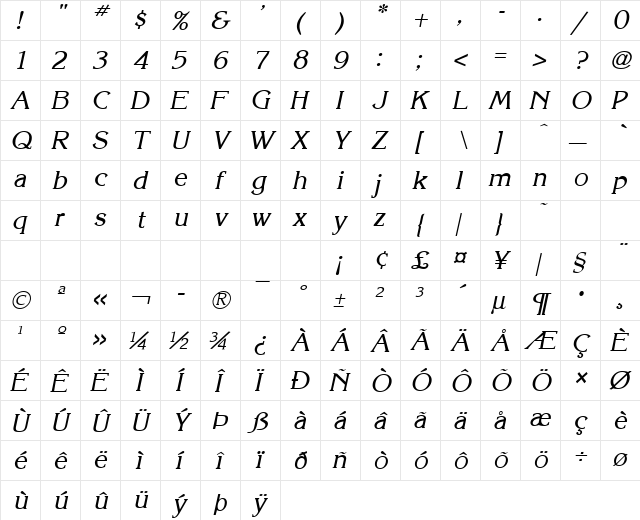
Keira Italic Font Preview
Keira Italic
Design Context for Keira Typeface
Keira offers clean, dependable letterforms without strong stylistic allegiance, making it a practical choice for designers who need flexibility. The dynamic lean of this cut emphasises speed and emphasis in any layout.
Pro Tip: Try Keira for annotation and caption copy alongside an upright companion — the contrast in angle creates a dynamic but ordered typographic system.